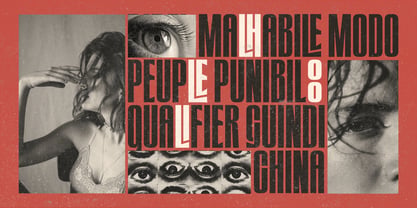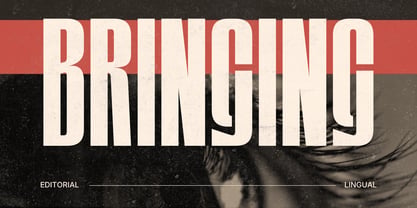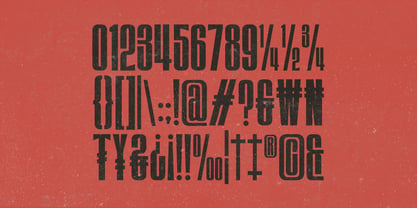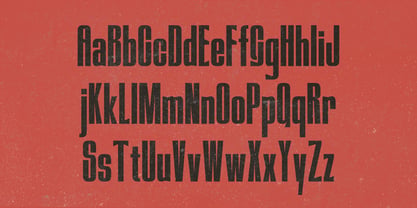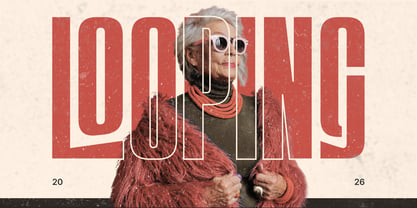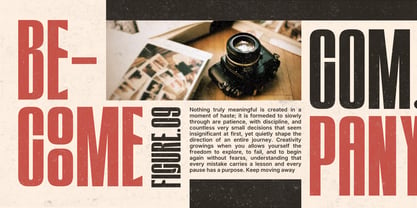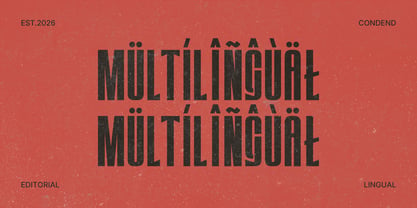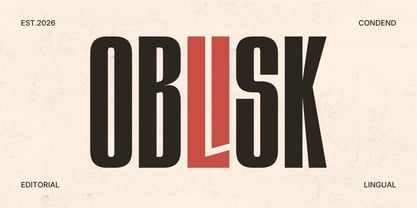
Oblisk
by Maikohatta
The Oblisk Font Family was designed by Gilang Ternadho and published by Maikohatta. Oblisk contains 1 styles. More about this family
Introducing our new product Oblisk – Bold Condensed Display Font Oblisk is a powerful bold condensed display font designed to deliver strong visual impact. With its tall proportions, clean geometric structure, and commanding presence, this typeface is perfect for editorial headlines, branding, posters, and modern advertising projects. Its condensed form maximizes space while maintaining excellent readability, making it ideal for bold layouts and statement typography. The strong vertical emphasis gives Oblisk a confident, contemporary, and professional character.
Designers: Gilang Ternadho
Foundry: Maikohatta